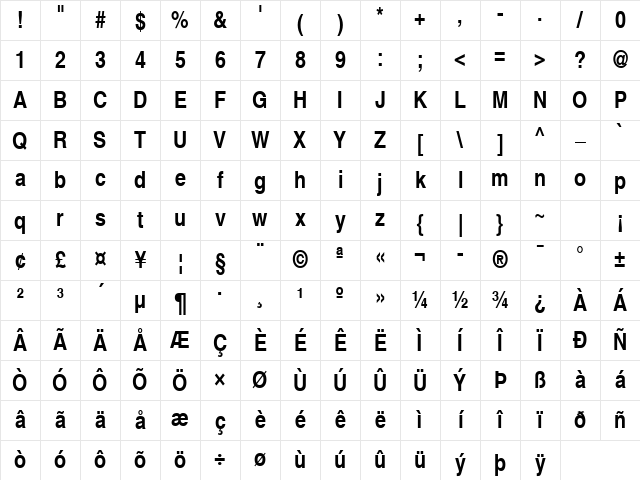
Helvetica Narrow Bold
Helvetica Narrow Family
Complete Helvetica Narrow Bold glyph index. Displaying only characters natively supported by Helvetica Narrow Bold font.
Design Context for Helvetica Narrow
Helvetica Narrow is a composed and adaptable typeface that performs quietly and consistently across a wide range of design contexts. Its bold stroke weight gives it real presence on the page. Its narrow stance lets it pack a punch even in space-constrained designs.